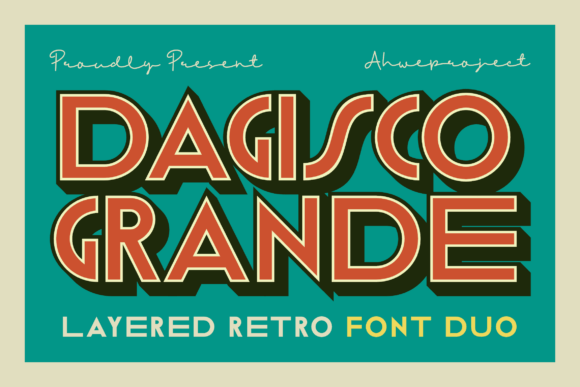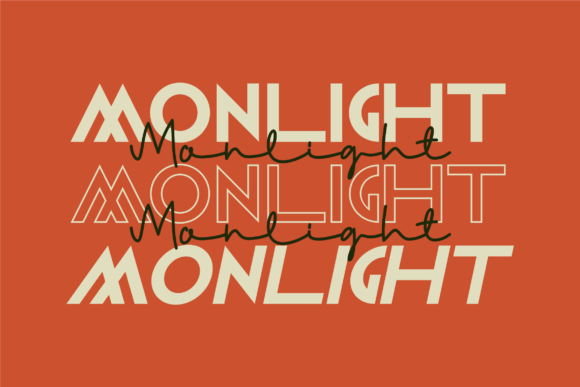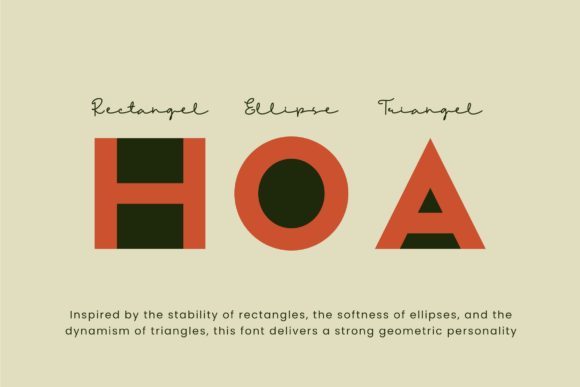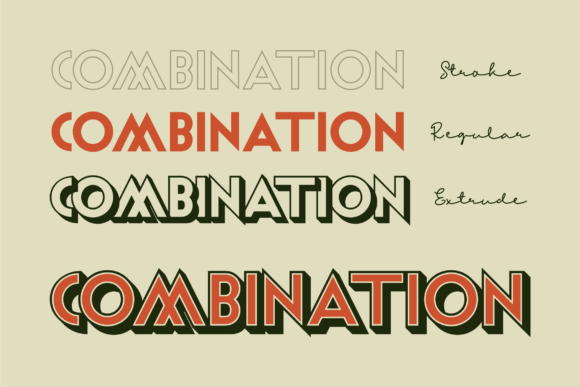
Dagisco Grande Font
About the Dagisco Grande Font
The Dagisco Grande Font offers a perfect balance of form and function for your design needs. Meet Dagisco Grande, a unique font duo that combines a retro-style layered sans serif with an elegant signature script. Designed with the spirit of the vintage era yet crafted to stay relevant in modern design, this font duo is ready to elevate your visual identity across a wide range of creative projects.
Dagisco Grande’s bold, retro-inspired sans serif excels in headlines, logos, and short-form text applications such as posters and packaging. Its strong visual presence makes it less suitable for body text or long paragraphs; readability suffers at smaller sizes. The elegant script complements the sans serif beautifully for branding elements requiring a sophisticated touch, such as signature lines or watermarks.
The overall personality is confident and stylish, ideal for brands projecting a vintage-inspired yet modern aesthetic. Think boutique hotels, artisanal food products, or vintage-inspired fashion.
Pairing Dagisco Grande’s sans serif with a clean, geometric sans serif like Montserrat for body copy provides excellent contrast and readability. For a warmer feel, consider pairing the script with a classic serif like Garamond for invitations or stationery.
Dagisco Grande Font Usage Examples
Dagisco Grande Font Example